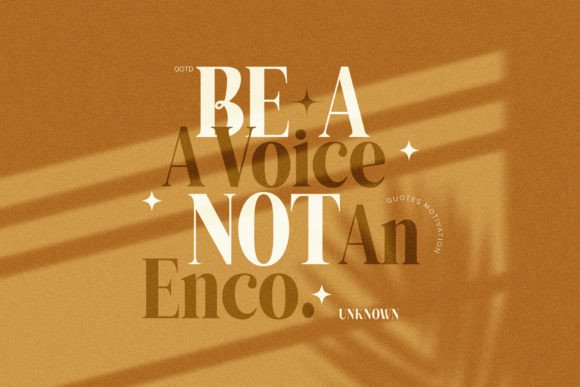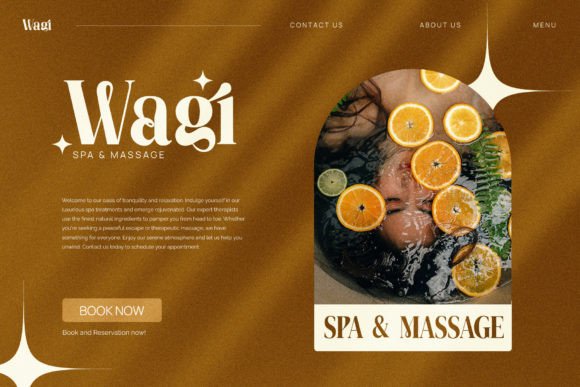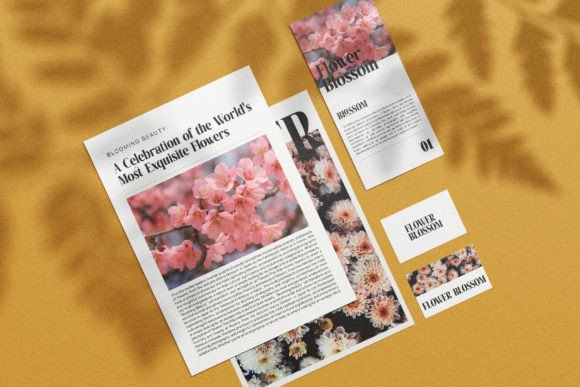
Mistar Font: Elegant Serif for Modern Logo Design & Branding!
About the Mistar Font
Meet Mistar Font, a stunning font that brings a touch of elegance and professionalism to any design. Mistar is a unique and very elegant font for branding and logo designs
Elegant serif typeface combined with a classy and modern style. This type of font is very suitable for your various needs such as branding projects, logos, wedding designs, social media posts, advertisements, product packaging, product designs, labels, photography, watermarks, invitations, stationery, and any project, created with high level of readability.
Mistar Font Usage Examples
Mistar Font Example